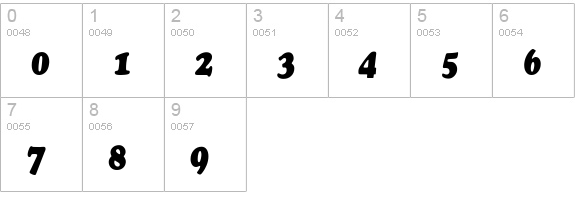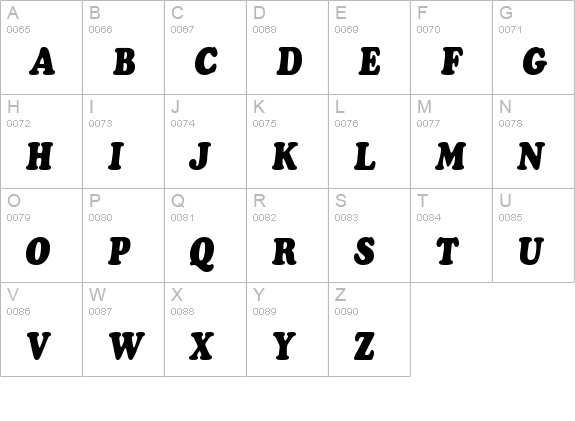
ChaceyCnd-Heavy-Italic Font Details
ChaceyCnd-Heavy-Italic is a heavy, high-impact, italic variant in the ChaceyCnd typeface family \xE2\x80\x94 well suited to high-impact headlines, posters, and display advertising.
ChaceyCnd-Heavy-Italic is a striking and elegant typeface that exudes sophistication and modernity. Its bold and italicized design adds a touch of flair and drama to any project, making it perfect for headlines, titles, and branding materials. The unique combination of sharp angles and flowing curves creates a visually appealing contrast that catches the eye. This font is not only stylish but also highly versatile, suitable for a wide range of design applications from print to digital media. Whether you're designing a poster, logo, website, or any other creative project, ChaceyCnd-Heavy-Italic is sure to make a bold statement. What's even better is that ChaceyCnd-Heavy-Italic is available for free download at FontsMarket.com. This means you can easily access and use this stunning font in your projects without any cost. Don't miss out on the opportunity to enhance your designs with this beautiful typeface. Download ChaceyCnd-Heavy-Italic today and take your creations to the next level!